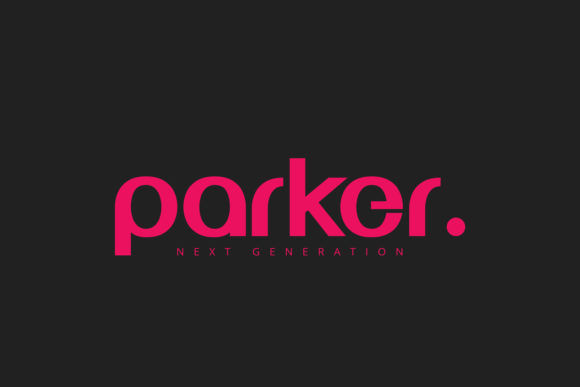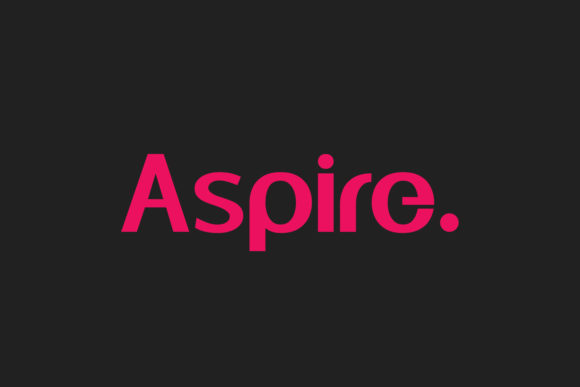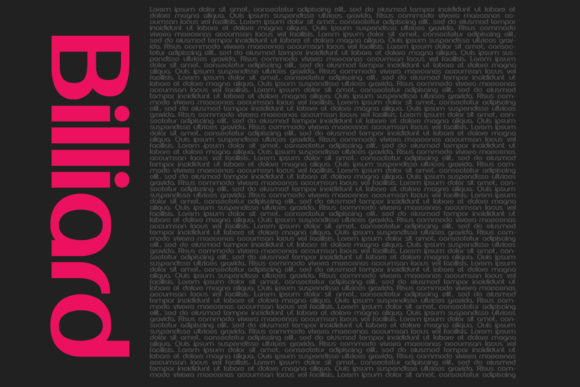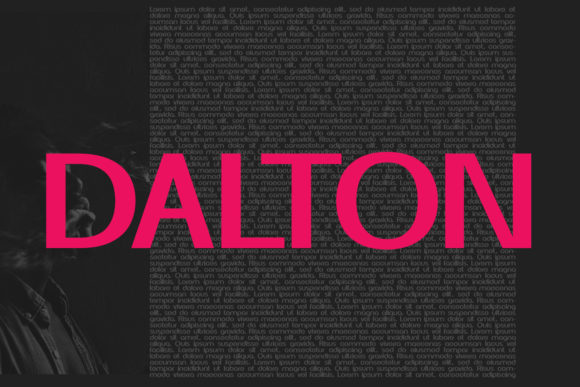
Cordinator Font: Elevate Your Designs with a Minimal and Neat Display Font
In the world of design, typography plays a crucial role in conveying messages, evoking emotions, and creating visual identities. Among the numerous fonts available, Cordinator Font stands out as a versatile and stylish display font that can elevate your creative projects to new heights. In this article, we’ll explore the features, benefits, and applications of Cordinator Font, and why it’s a must-have for designers and crafters.
What is Cordinator Font?
Cordinator Font is a minimal and neat display font designed to make a statement. Its clean lines, simple shapes, and elegant curves create a visually appealing aesthetic that’s perfect for a wide range of projects. Whether you’re working on a logo, branding materials, social media graphics, or website headers, Cordinator Font is an excellent choice.
Key Features of Cordinator Font
- Minimalist design: Cordinator Font boasts a sleek and minimalist design that exudes sophistication and elegance.
- Neat and clean lines: The font’s clean lines and precise curves create a sense of clarity and readability.
- Versatile: Cordinator Font can be used in various contexts, from digital designs to print materials.
- Easy to read: Despite its minimalist design, Cordinator Font is highly legible, making it perfect for headlines, titles, and short texts.
Benefits of Using Cordinator Font
- Enhance your brand’s visual identity: Cordinator Font can help you create a consistent visual brand language that resonates with your audience.
- Stand out from the crowd: With its unique and stylish design, Cordinator Font can help your designs stand out in a crowded market.
- Increase readability: The font’s clean lines and neat design ensure that your message is conveyed clearly and effectively.
Applications of Cordinator Font
Cordinator Font is an incredibly versatile font that can be used in a wide range of applications, including:
- Logo design: Create a lasting impression with a stylish and memorable logo.
- Branding materials: Use Cordinator Font to create consistent branding across business cards, brochures, and letterheads.
- Social media graphics: Elevate your social media presence with eye-catching graphics and typography.
- Website headers: Create a stunning first impression with Cordinator Font as your website header.
Tips for Using Cordinator Font
To get the most out of Cordinator Font, here are some tips to keep in mind:
- Pair it with contrasting fonts: Combine Cordinator Font with contrasting fonts to create visual interest and hierarchy.
- Experiment with colors: Try out different colors and gradients to add depth and emotion to your designs.
- Use it sparingly: Cordinator Font is best used sparingly to create emphasis and draw attention.